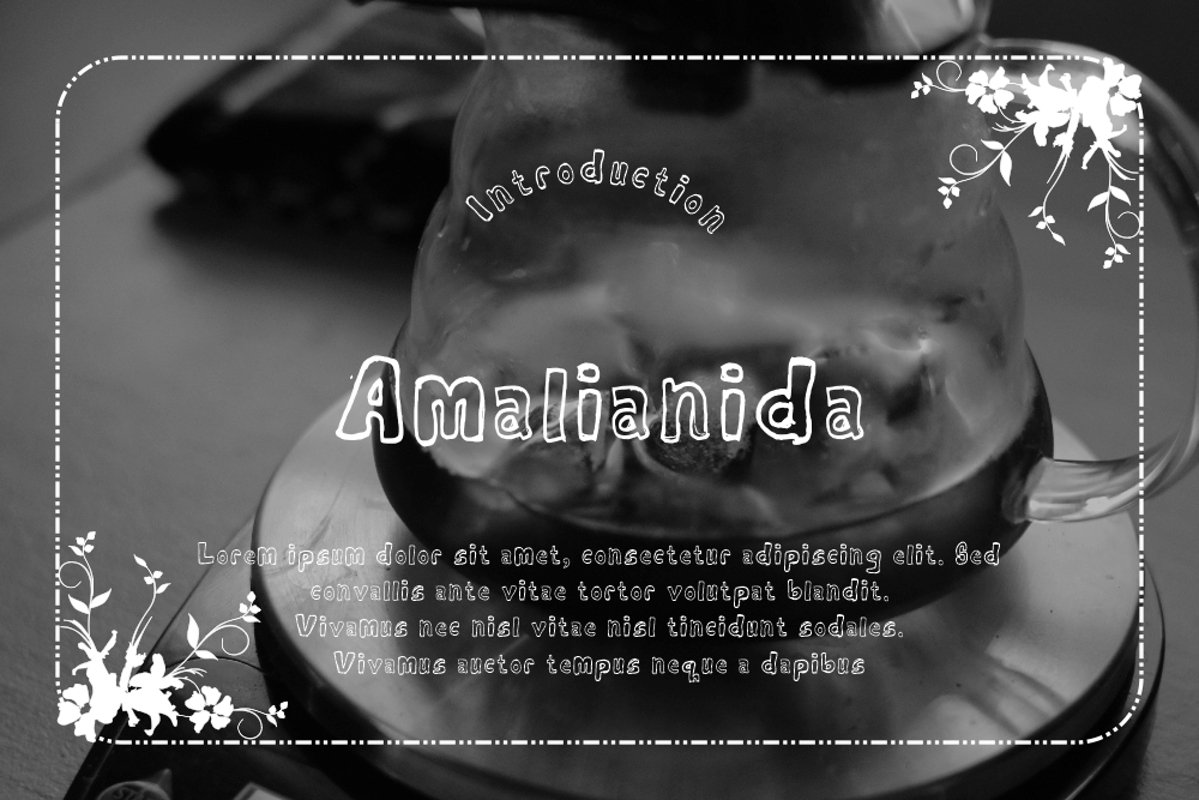
Amalianida
Amalianida-Regular
Amalianida Typeface is a Display type. It suitable for any vintage type needs and more Happy creating.Very suitable for you who do exploration